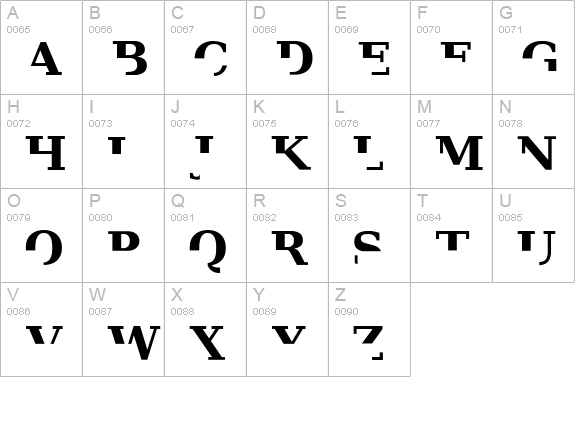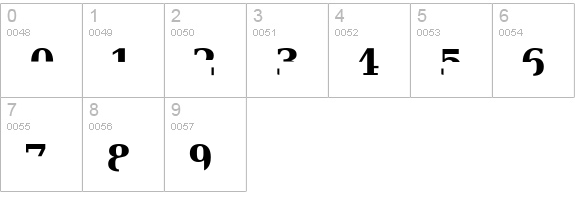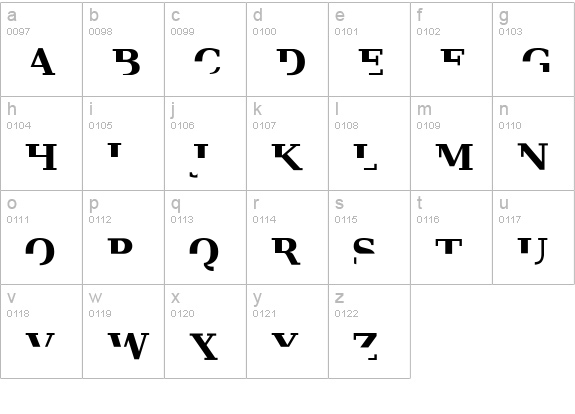
Veru Serif Font Details
Veru Serif font is a stunning typeface that combines elegance with a touch of modernity. Its clean lines and balanced proportions make it perfect for a wide range of design projects, from advertising and branding to editorial layouts and web design. With its versatile nature, Veru Serif font can effortlessly adapt to various styles and themes, adding a professional and sophisticated touch to any project. Whether you're creating a logo for a high-end fashion brand or designing a sleek website for a tech startup, Veru Serif font is the ideal choice to make a lasting impression. The beauty of Veru Serif font lies not only in its aesthetics but also in its availability. It is freely available to download at FontsMarket.com, allowing designers and creatives to access this exceptional typeface without any cost. This makes Veru Serif font a valuable asset for both professional designers and those who are just starting their creative journey. The extensive character set of Veru Serif font includes uppercase and lowercase letters, numerals, punctuation marks, and special characters, ensuring that you have all the tools you need to create visually stunning and engaging designs. Its legibility and clarity make it suitable for both print and digital applications, ensuring that your message is conveyed effectively, regardless of the medium. Whether you're looking to add a touch of sophistication to your next project or simply want to explore a versatile typeface, Veru Serif font is the perfect choice. Its timeless elegance, combined with its availability as a free download at FontsMarket.com, makes it a must-have for any designer's toolkit. So why wait? Enhance your designs and elevate your creativity with Veru Serif font today.